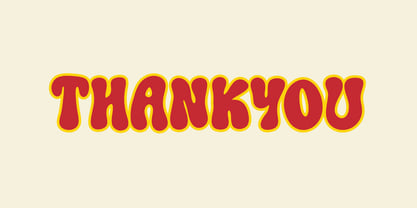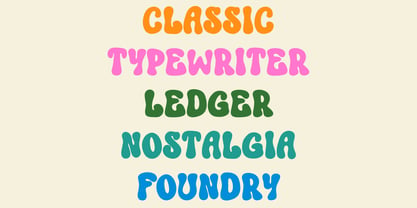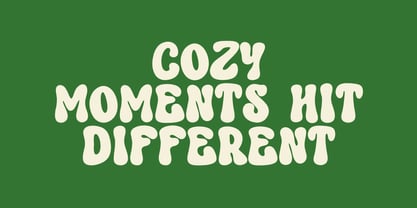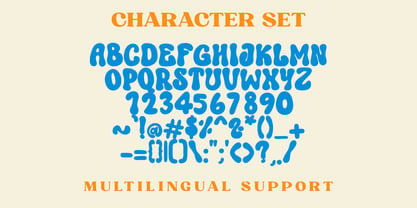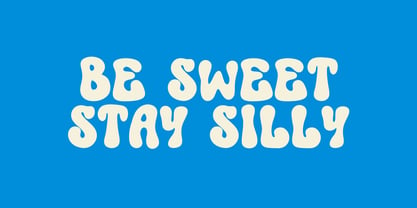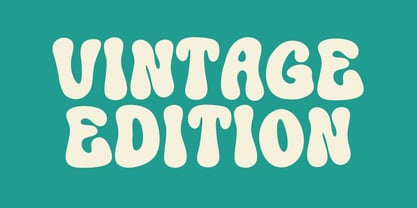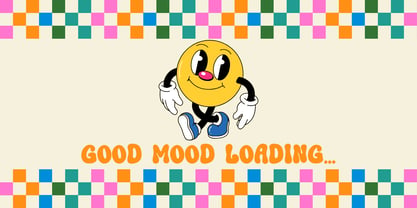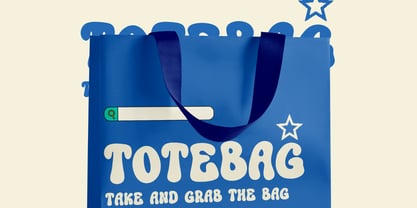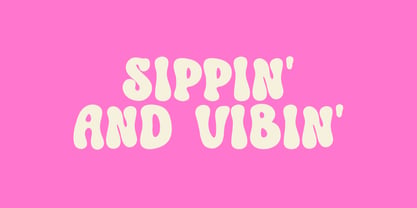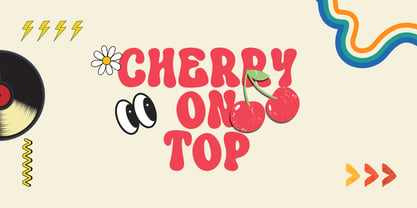
Oamphie Vintage
by DM Studio
The Oamphie Vintage Font Family was designed by Dimas Prasetyo and published by DM Studio. Oamphie Vintage contains 1 styles. More about this family
Meet Oamphie Vintage, the Vintage Display Font Oamphie Vintage is a character-rich display font made to bring nostalgic charm and timeless style into your designs. The letterforms feel bold, classic, and full of retro personality, making every headline look warm and memorable. It has that old-school appeal that works beautifully for branding, packaging, posters, labels, and heritage-inspired layouts. Use this font for café logos, product packaging, retro posters, badge designs, apparel branding, signage, and social media content. As a result, your typography feels classic, bold, and full of charm. Why Oamphie Vintage sells First, this font installs quickly and works smoothly in Canva, Photoshop, and Illustrator. Next, the vintage structure gives your work a strong retro look without needing too many extra effects. Then your layouts come together faster because the font already adds mood, history, and visual character on its own. Moreover, vintage-inspired design continues to perform well across café branding, packaging, fashion, and handmade product markets. Therefore, this font fits perfectly into retro and classic font collections. Fast layouts with the Oamphie Vintage Font Start with short headlines, logos, or badge-style wording for the best impact. After that, add textures, subtle grain, or faded color palettes to enhance the vintage mood. Because the style already has a lot of character, keep the layout balanced and avoid too many competing elements. In addition, pair it with a clean serif or sans serif for secondary details and supporting text. Finally, try palettes like cream and brown, mustard and dark green, faded red and beige, or navy and ivory for a timeless retro look. Creative uses and quick wins Retro logos and café branding Product labels and packaging Old-school posters and badge designs Apparel graphics and heritage-style merch What you get Uppercase and lowercase letters Numbers and basic punctuation Design tips for Oamphie Vintage Use this font for titles, logos, and standout phrases instead of long paragraphs. Also, try distressed textures or stamp-style layouts to bring out the nostalgic feel. For print, test muted color palettes for a more authentic look. For digital projects, increase the size slightly so details remain sharp on smaller screens. Finally, combine it with frames, ribbons, stars, or classic badge elements for stronger retro styling.
Designers: Dimas Prasetyo
Foundry: DM Studio